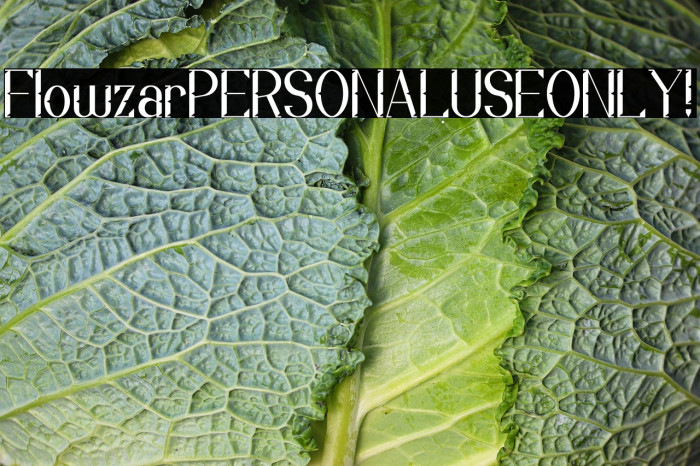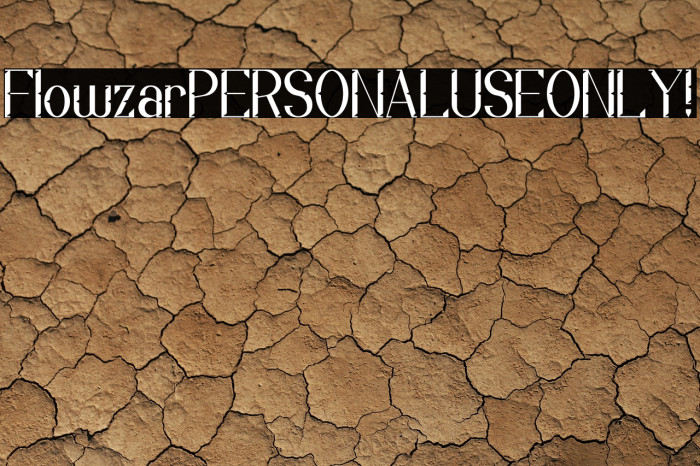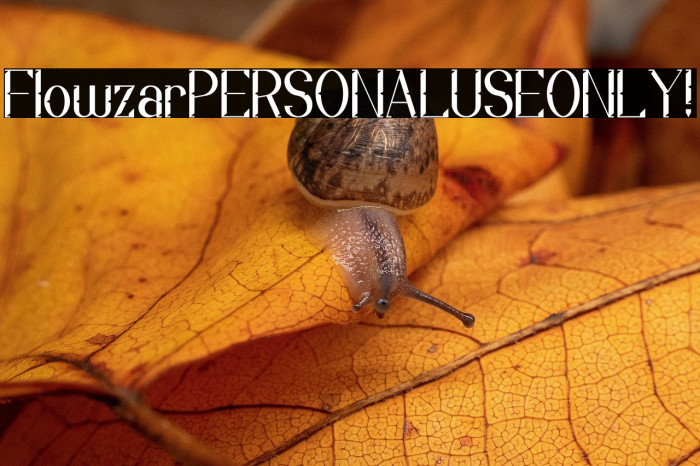
Flowzar PERSONAL USE ONLY! Font
Flowzar PERSONAL USE ONLY! Description
A decorative, stylized serif font with sharp, angular features and unique cutouts in the letterforms.